Ötztal tourist board
The famous holiday destination, the Ötztal valley in the Austrian Alps, completed an extensive brand overhaul, including a customised version of our serif and sans Adelle font family.
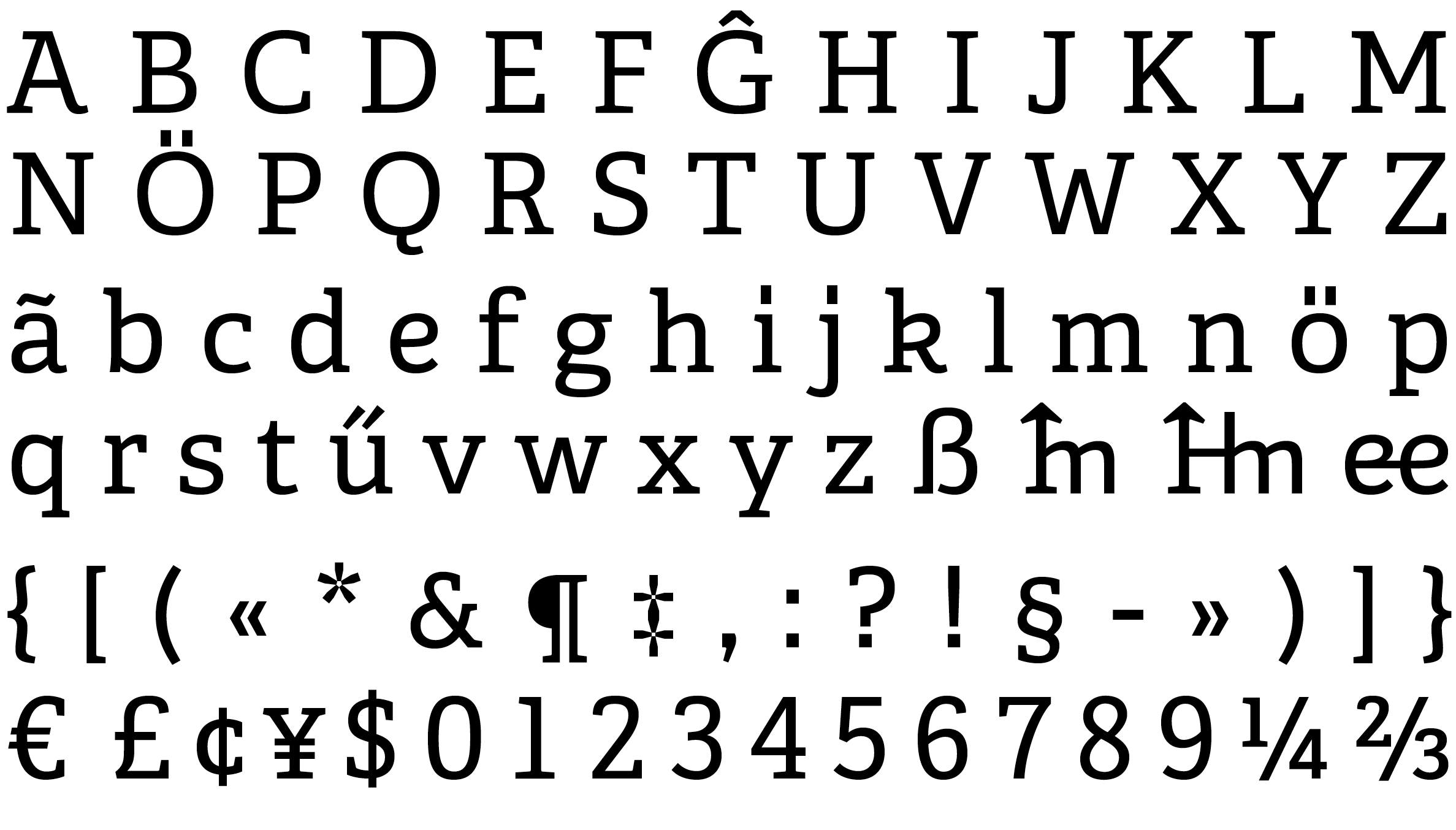
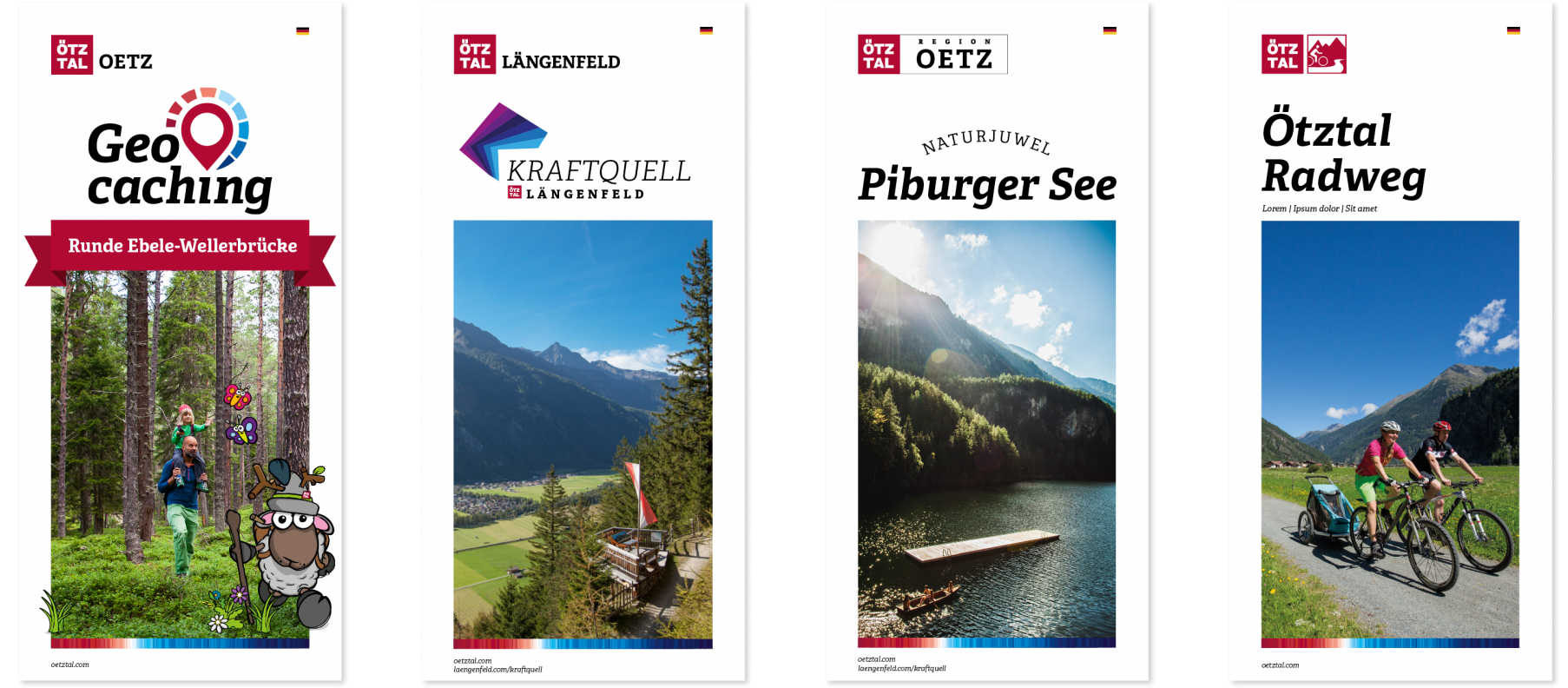
Some mock-ups of the tourist catalogues (image by NORDEN).
Austrian brand agency NORDEN from picturesque Innsbruck commissioned TypeTogether to create a special version of the Adelle and Adelle Sans font families for the tourist board of Ötztal, Sölden, and Gurgl. The project won NORDEN the prestigious 2020 German Design Award.
One of the tasks was to modify Adelle’s punctuation marks and the ‘Umlaut’ (dieresis) to fit the elongated square design of the existing Ötztal logotype and to emphasise the importance of the letter »ö« in the local dialect. At first it might seem simple enough to change the circular diacritics to squares, but once such a characteristic detail is changed, the entire design has to be modified to remain consistent. The resulting family contains around 40 modified glyphs per style.
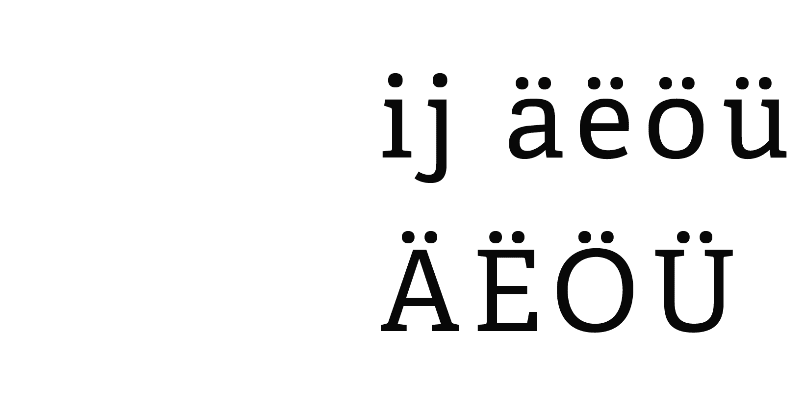
The second assignment was to create special letters that would reflect the unique dialect of the Ötztal valley. NORDEN asked us to explore and propose ideas to create special ligatures and alternate letters representing common sounds in the dialect (in German, «Mundart»). With these idiosyncrasies, the customised typeface became a strong element of identification within the branding system and is being used for all communication materials. The extra glyphs are primarily employed in advertising to increase brand recognisability.
In 2010 the Ötztal dialect was declared a UNESCO World Cultural Heritage. Locals are proud users (about 15,000 active) and foster this particular way of speaking, which goes back in untampered tradition for over 900 years.
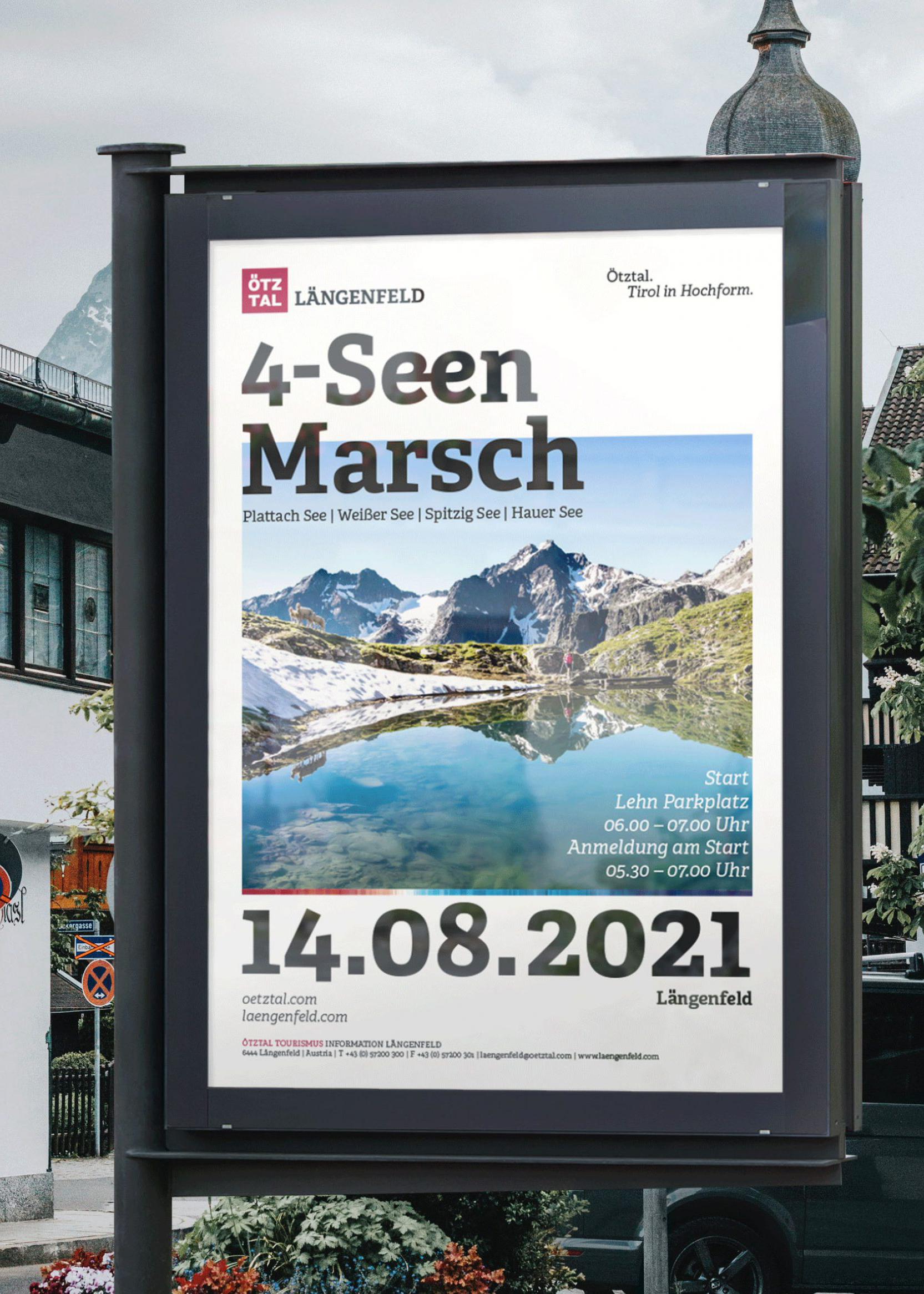
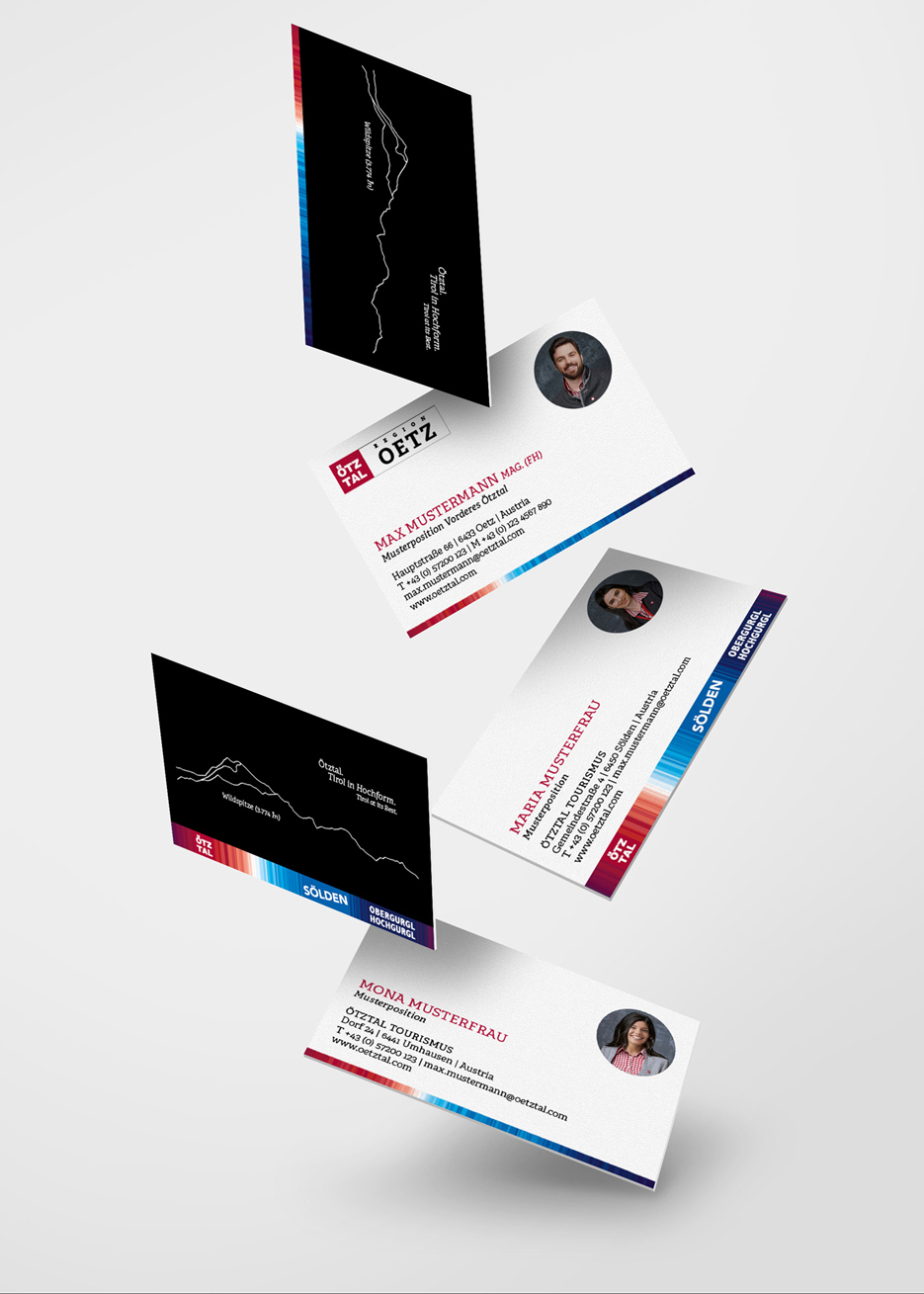
Special ligatures accessible via the OpenType feature «discretionary ligatures».
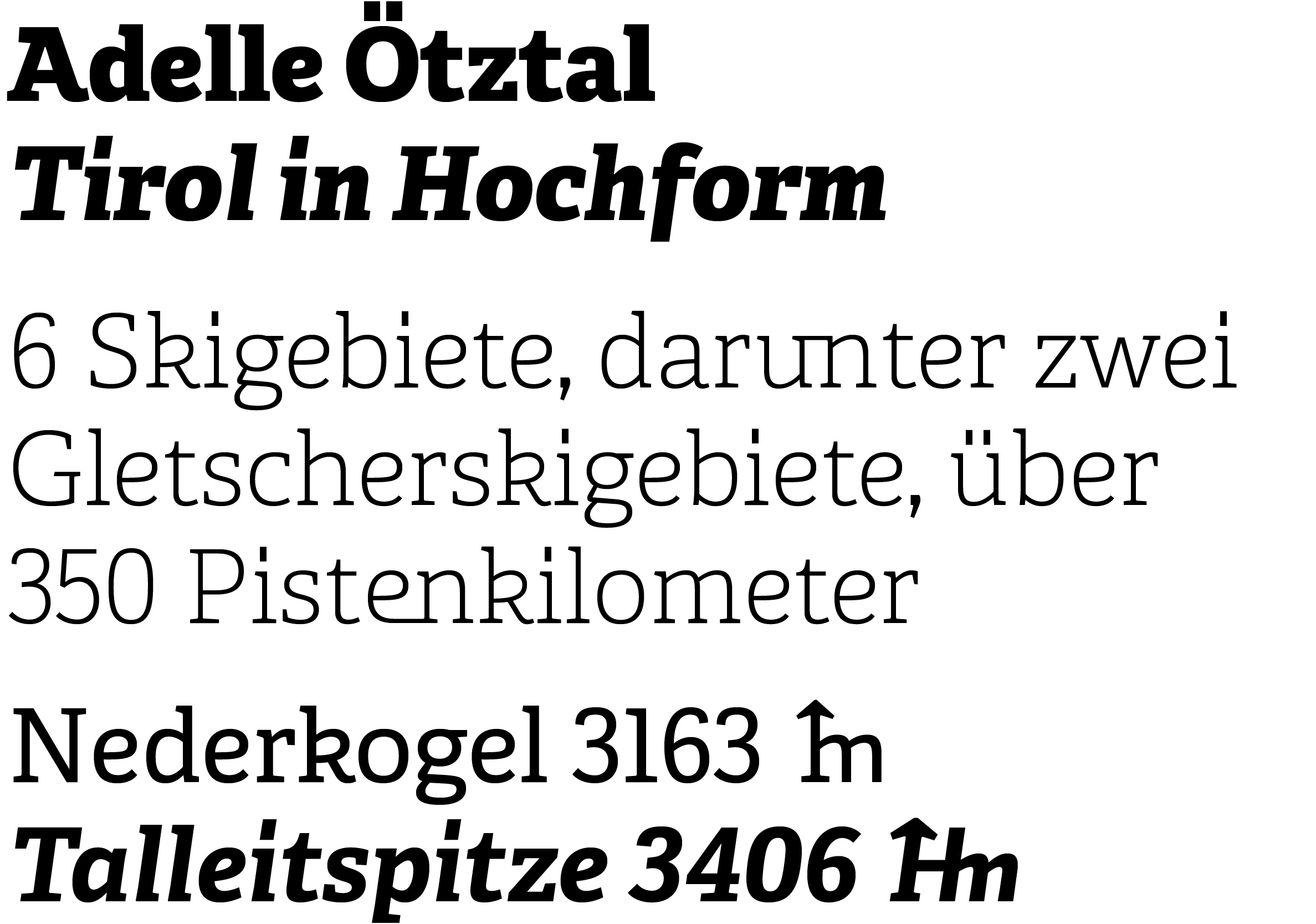
The process of developing alternate letters took us from some rather experimental shapes to something less radical and therefore more adaptable within text. Below are some of the wilder options we developed, but in the end it was decided to modify six frequently occurring letters in the local language. Such alterations are sufficient to make a unique typeface and become a key brand identifier.
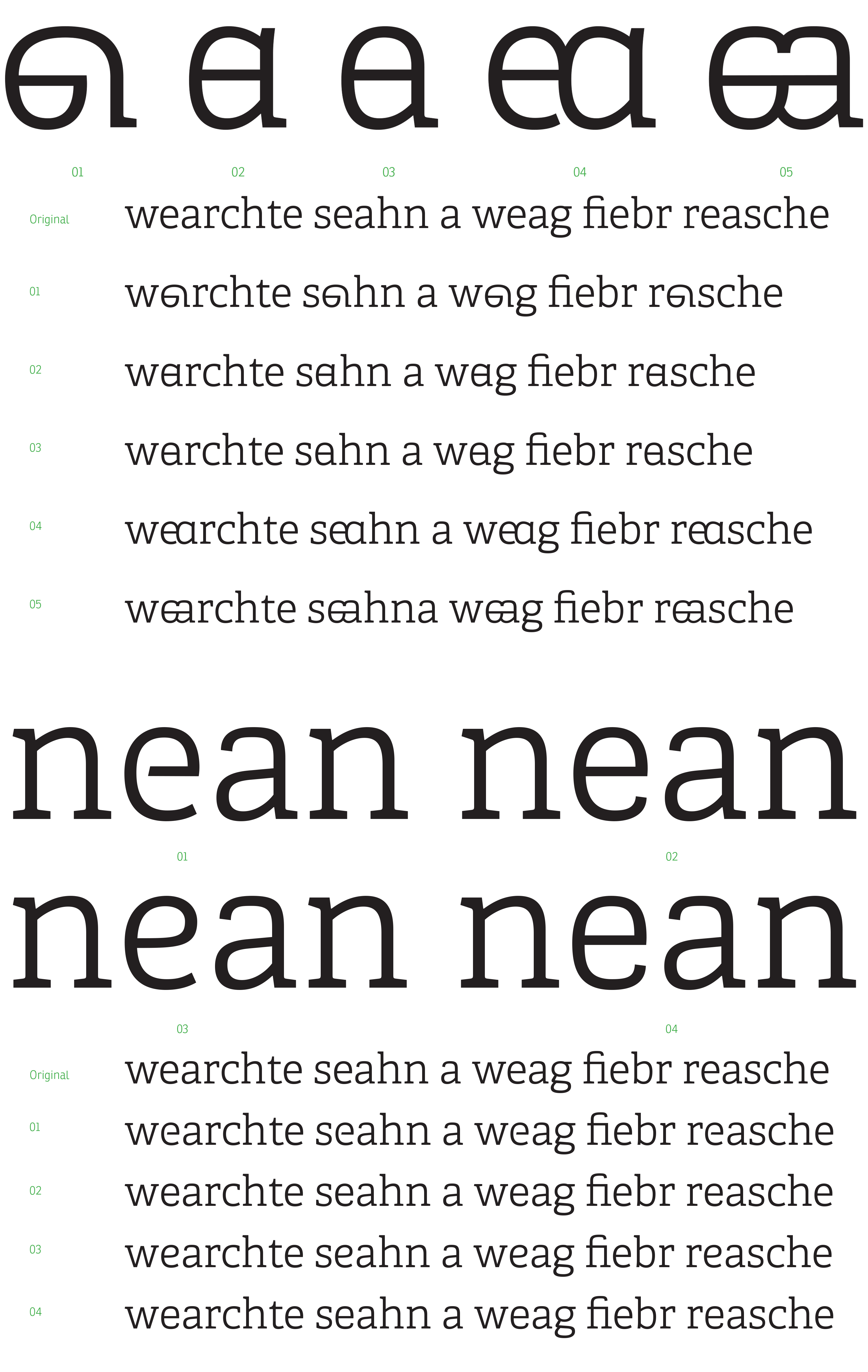
Given the valley’s geography and alpine environment, height indications appear quite frequently in Ötztal’s communication. Therefore another typographic feature was added to symbolise this, »Meter« and »Höhenmeter«. The two special glyphs were integrated into the fonts and are accessible via the OpenType contextual alternates feature.
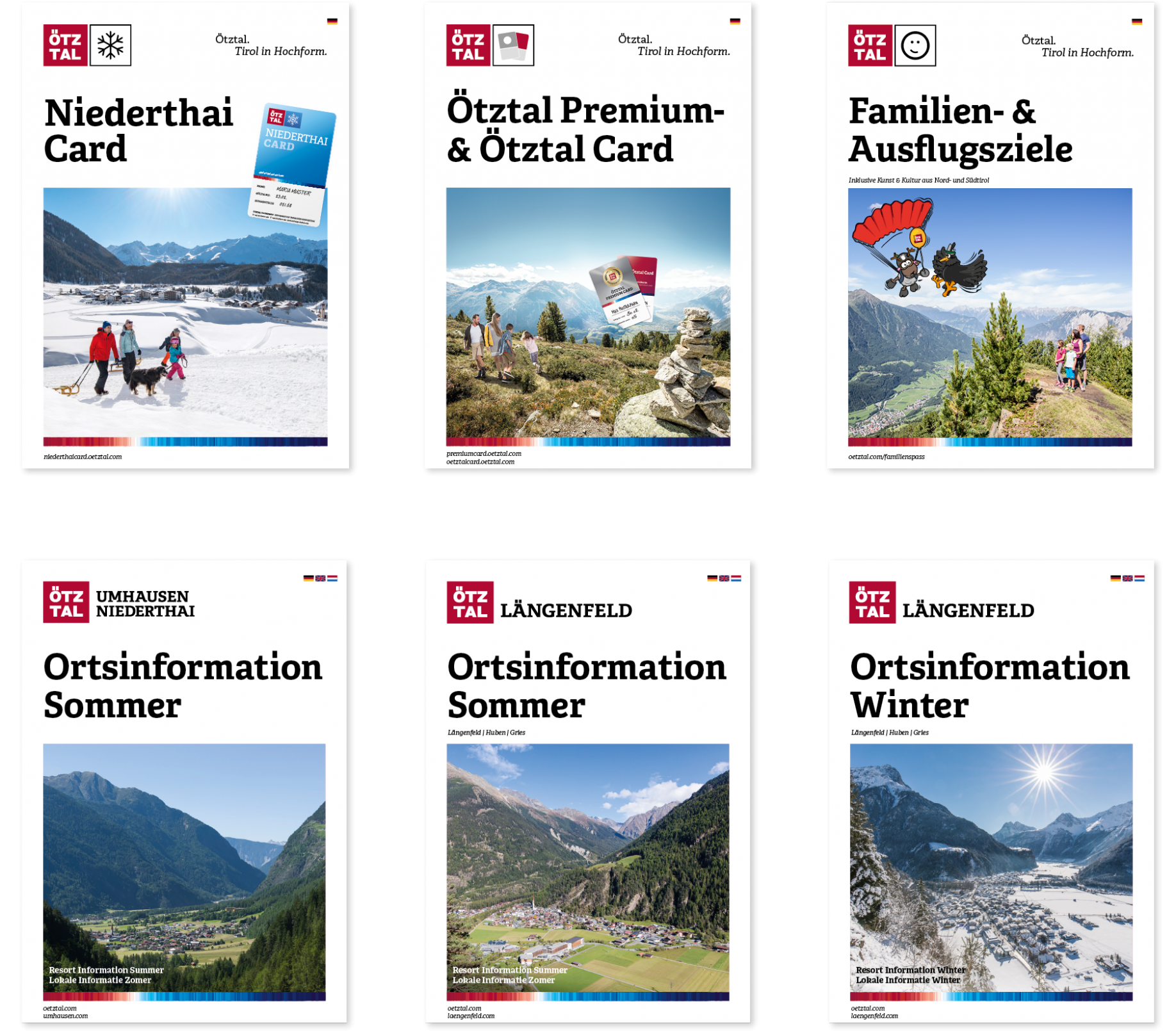
Some mock-ups of the tourist catalogues (image by NORDEN).
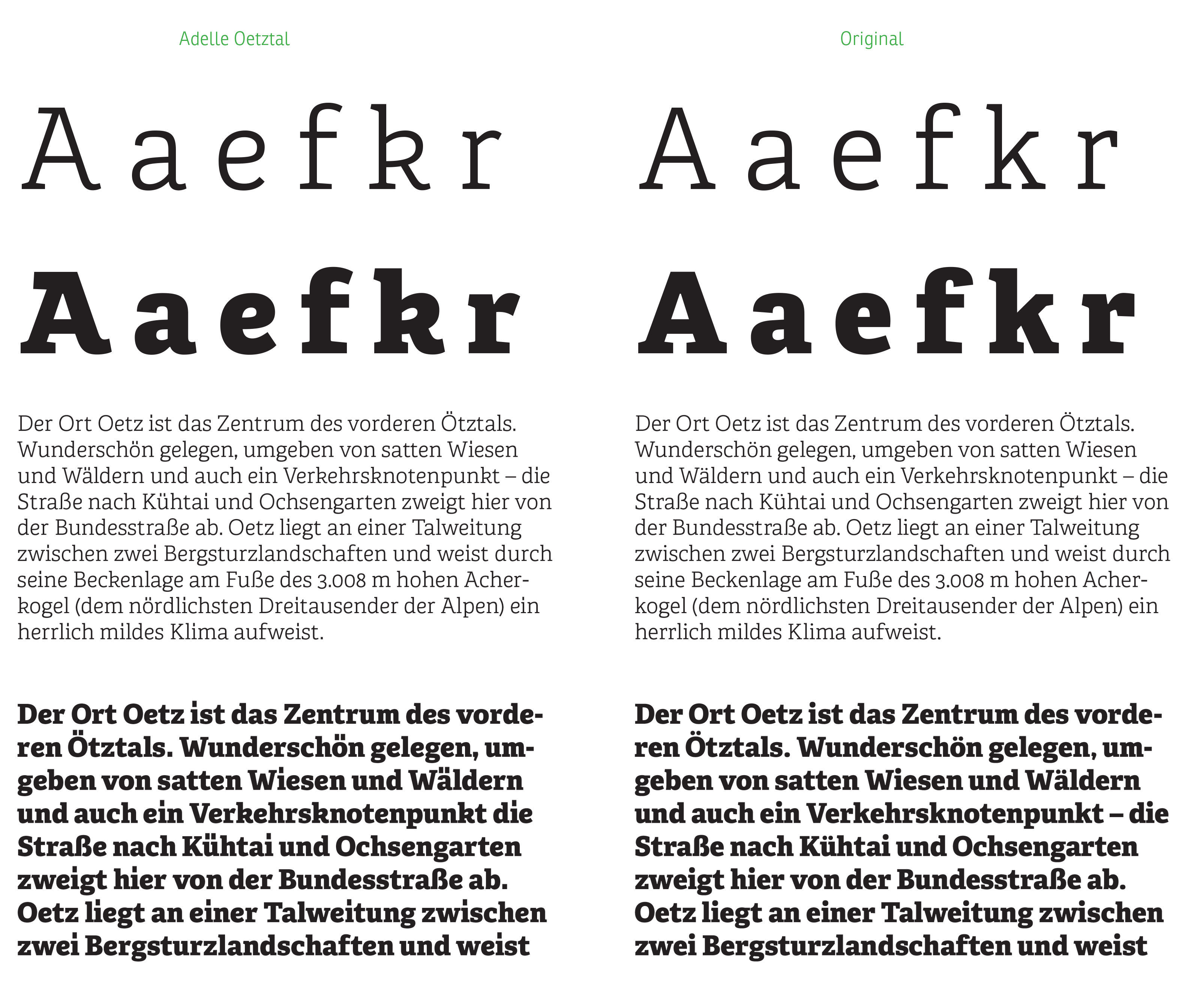
Comparison between the original Adelle (right column) and Adelle Ötztal (left coumn) with six modified letters as default characters.
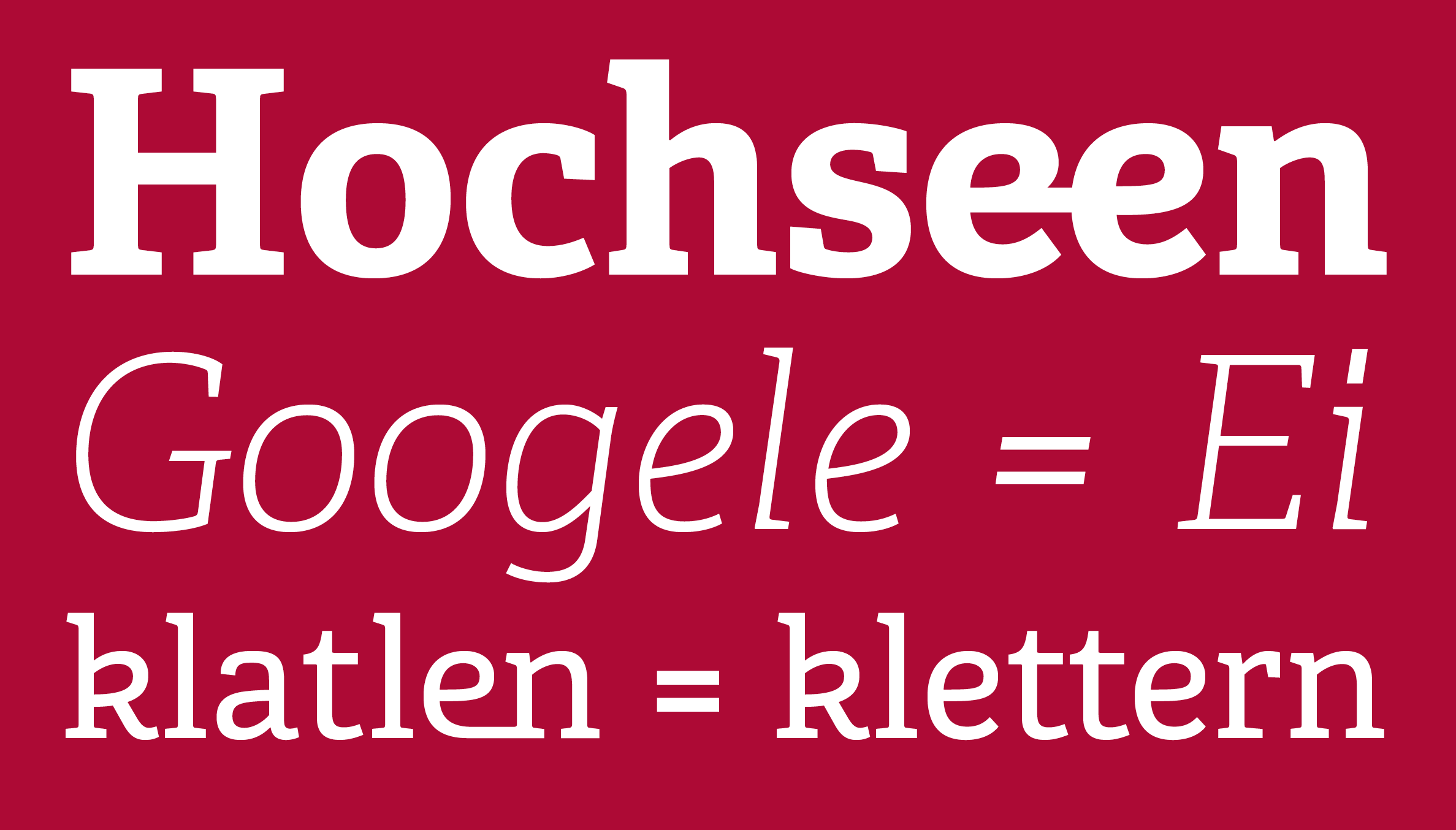
All dots were changed to elongated squares to resemble the Ötztal logotype, resulting in the need to modify other characters to maintain balance.